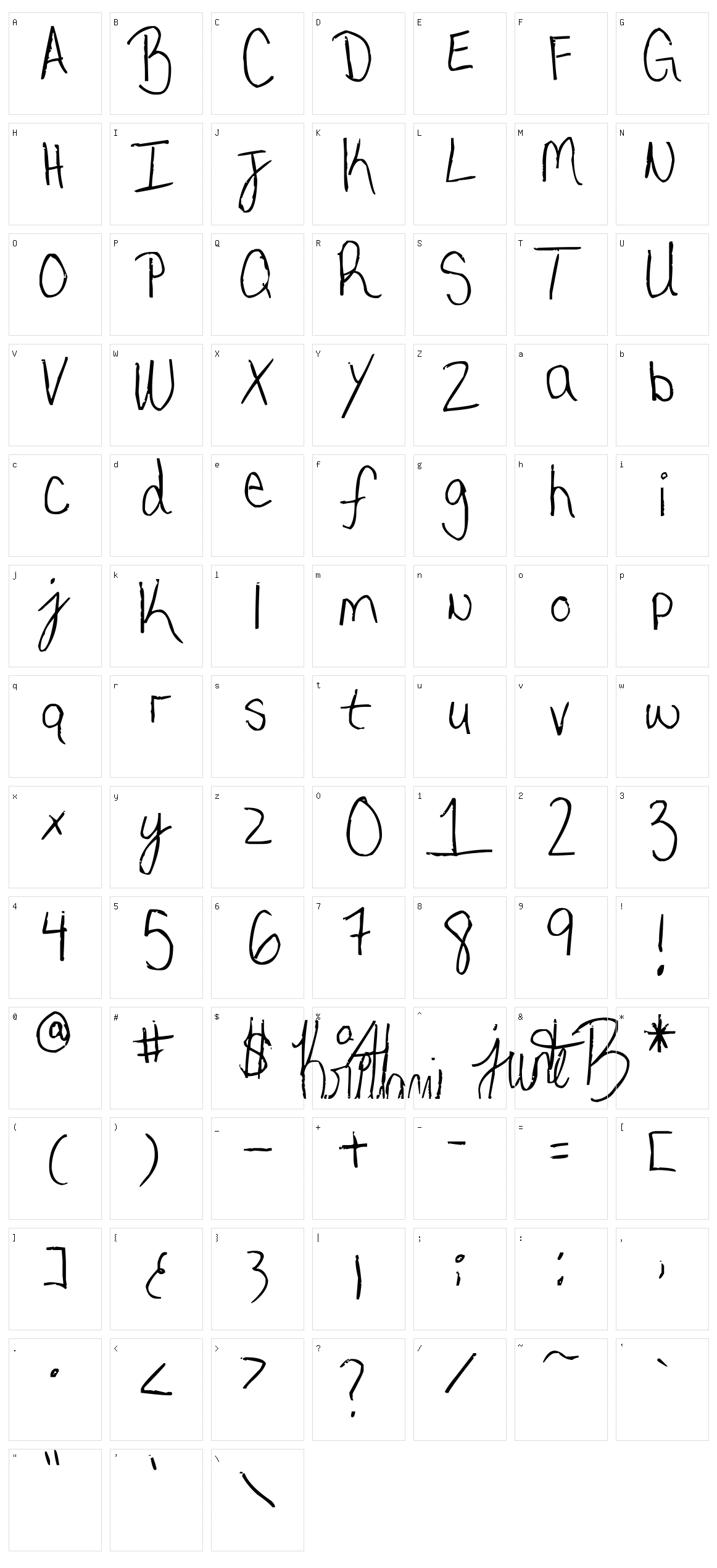
The free font My very own handwriting is carefully designed by Brittani J, showcasing a thoughtful balance of creativity and usability and falls under the Script font style. When you download the ZIP file, it contains only 14.32 KB of font files, making it lightweight and quick to download. Please review the license details below to understand permitted usage and distribution rights. If license information is not available, we recommend using this font for personal projects only or contacting the author directly for commercial usage permissions.